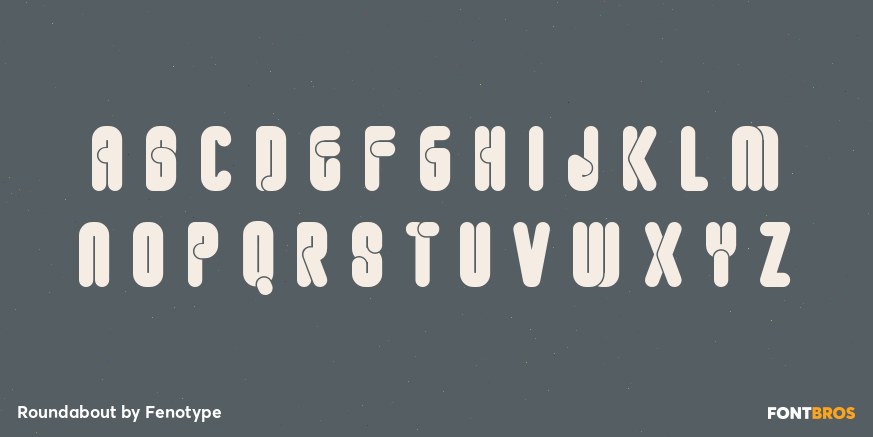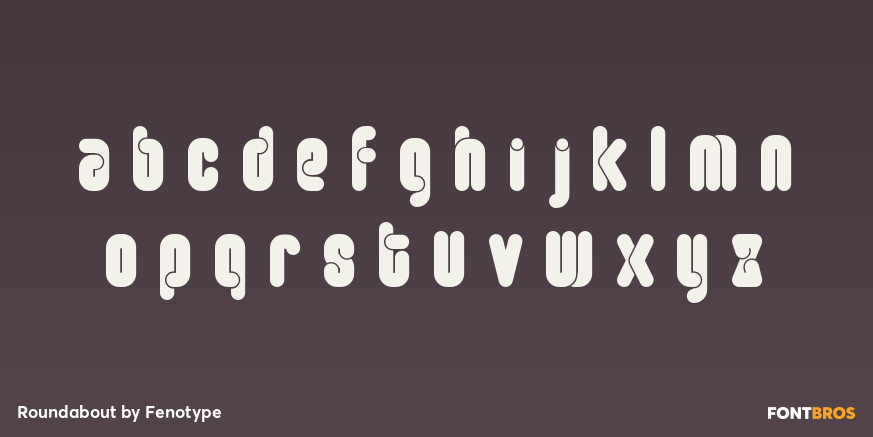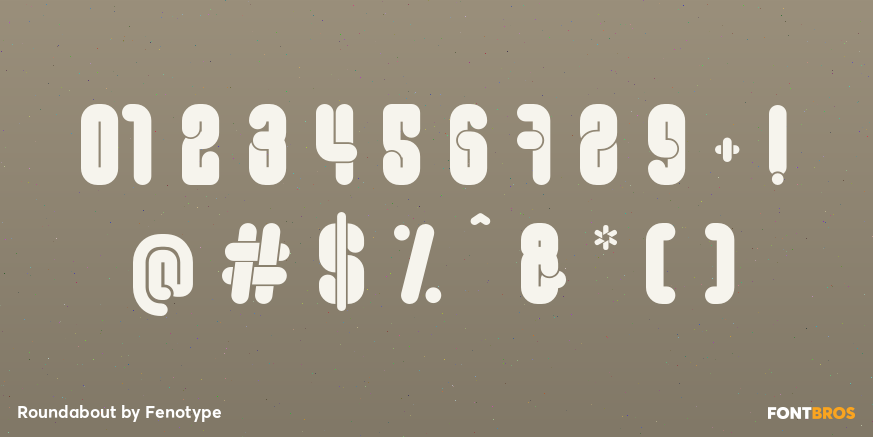
Roundabout
Font Family by Fenotype
Roundabout is a two-style display sans serif with a playful retro-futuristic feel. Its bold, curving forms give it a groovy, wacky personality that nods to 1960s and 1970s design while still feeling graphic and energetic on the page.
With Regular and Bold styles included, this family gives you a compact set of options for punchy headlines, posters, packaging, logos, and branding that leans fun rather than formal. It is especially well suited to projects that want a spirited vintage mood, a space-age twist, or a standout special-effect look.
Designed by Fenotype, Roundabout brings together sans serif clarity and expressive shape in a way that feels approachable, stylized, and easy to remember.